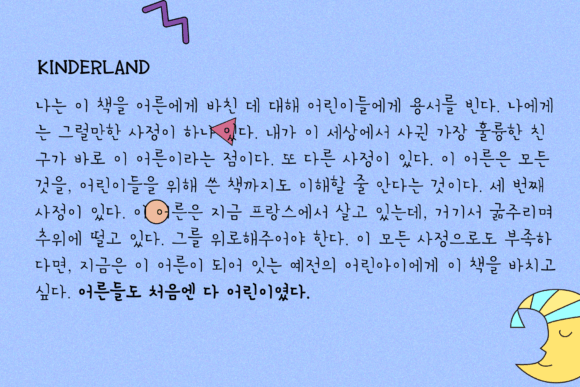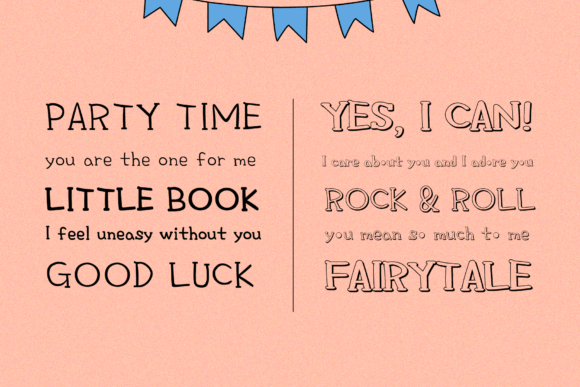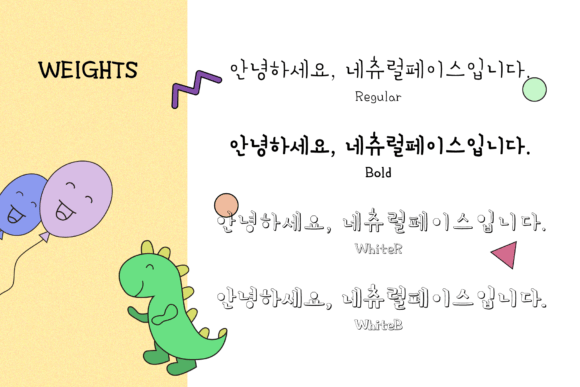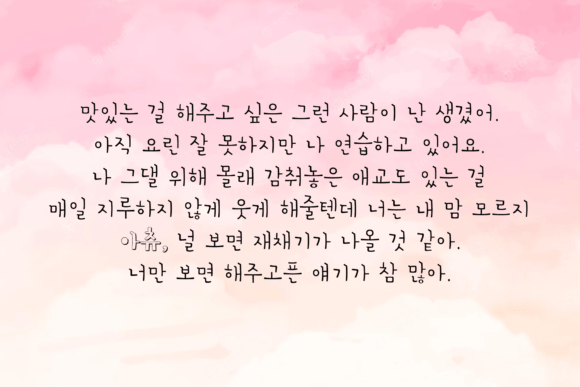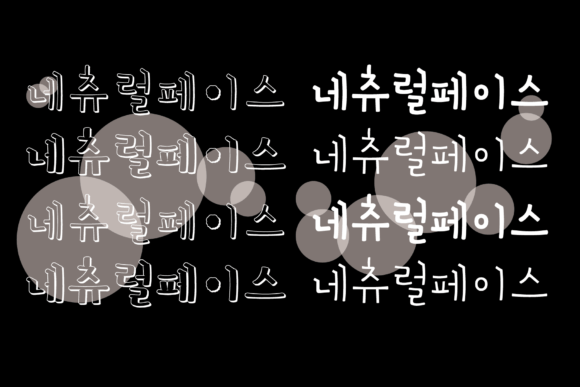
Introduction to Kinderland Kr Font
It is a neat and friendly handwriting typeface with unadorned innocence.
The tight handwriting gives off a cute atmosphere as if it were written by a young person In the existing Kinderland, only Regular and Bold were introduced, but the Korean version of the font introduces two white weights.